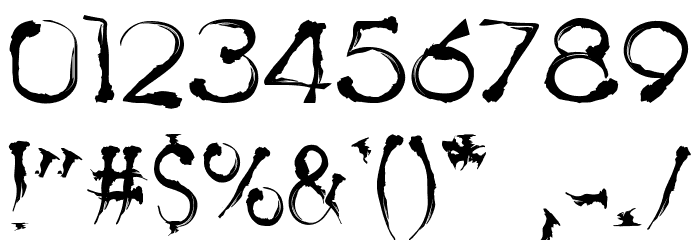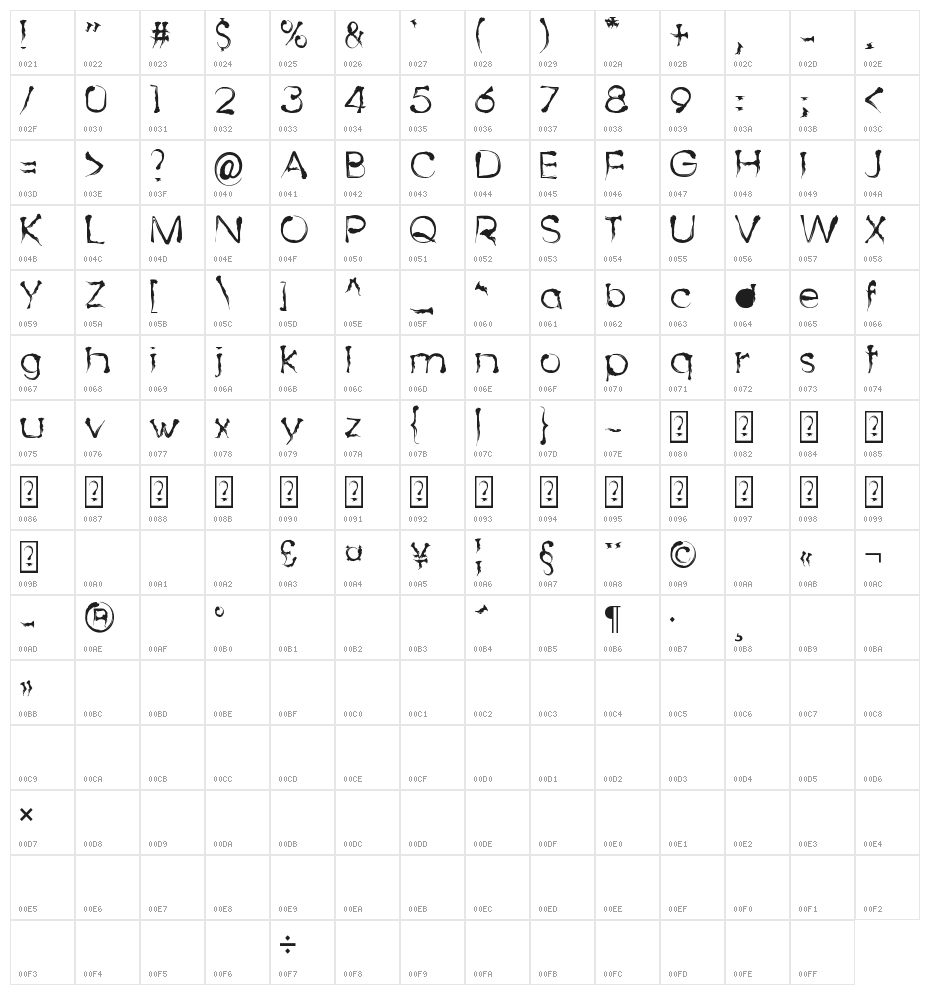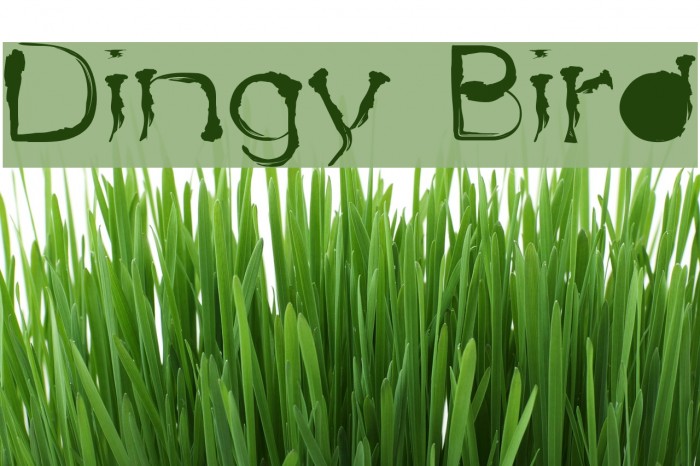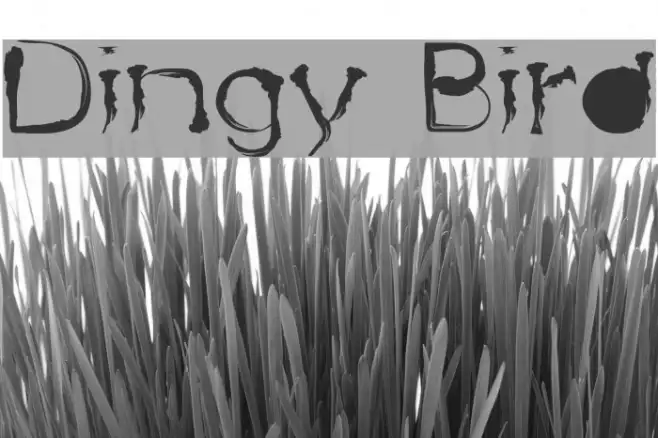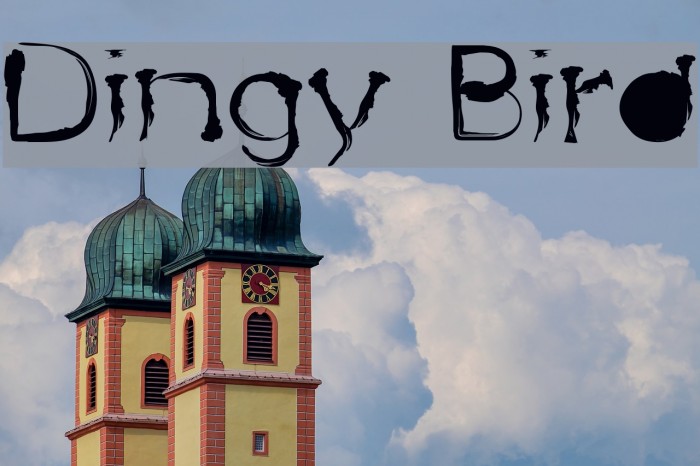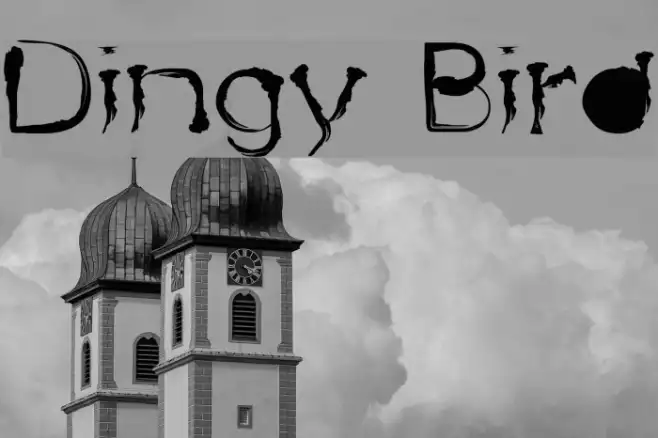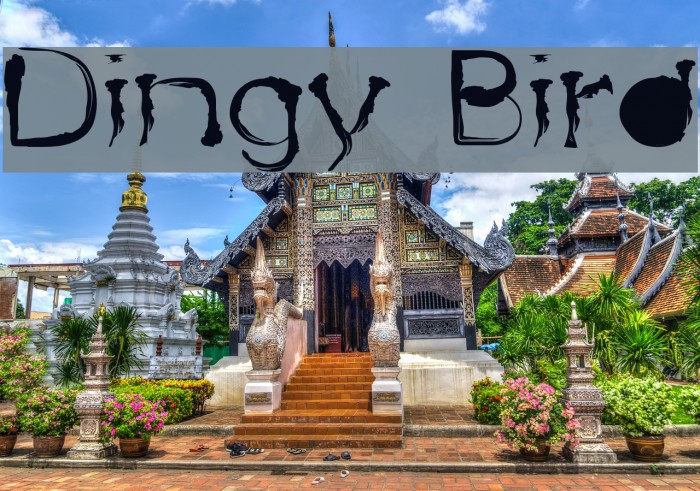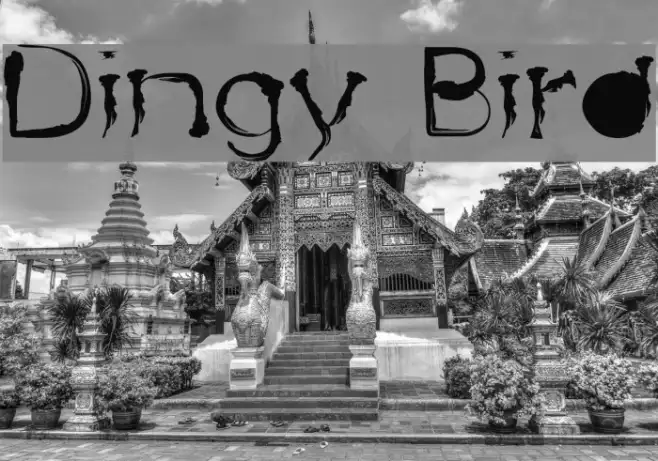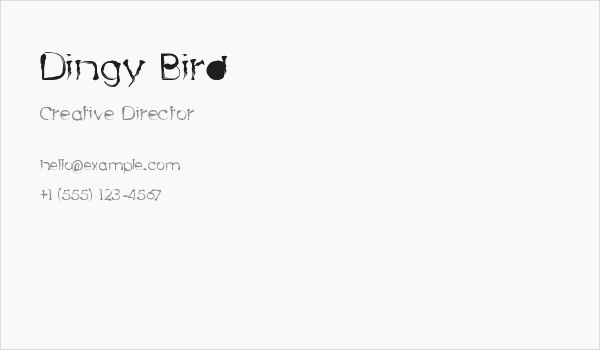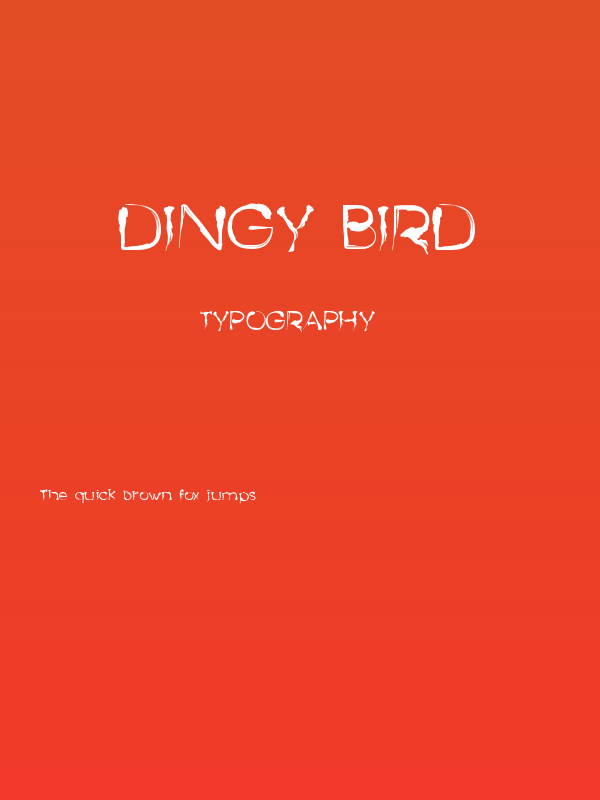
Dingy Bird Font
Dingy Bird Description
This font features a highly decorative and artistic style, characterized by its unique, organic shapes that resemble twisted vines or branches. Each letter is crafted with intricate details, giving it a wild and untamed appearance. The strokes vary in thickness, creating a dynamic and visually engaging effect. The overall design is reminiscent of nature-inspired themes, making it ideal for projects that require a touch of fantasy or mystery. The font maintains a consistent baseline, but the ascenders and descenders often extend beyond typical boundaries, adding to its whimsical charm.
| Proposed Projects | Ideal for fantasy book covers, nature-themed posters, artistic logos, and creative invitations. |